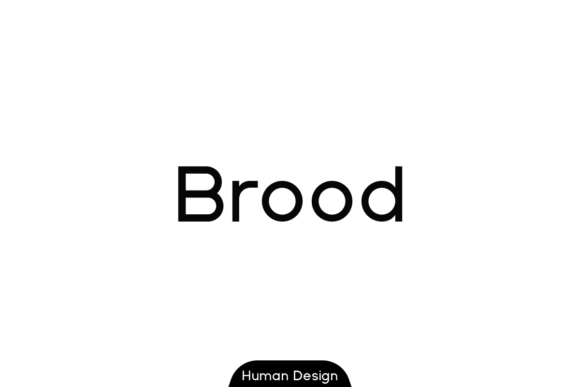
Embark on a typographic odyssey with Brood Font, a minimalist masterpiece crafted by Human Design. A sans serif font of impeccable taste and adaptability, Brood Font effortlessly elevates your designs to new heights of sophistication.
Step into a world of boundless creativity, where Brood Font's clean lines and understated elegance seamlessly complement any project, from sleek logos to captivating headlines. Its versatility knows no bounds, lending itself beautifully to web design, branding, and editorial endeavors.
Unleash your inner artist and let Brood Font serve as your canvas. Its simple, yet striking presence allows your words and ideas to take center stage, ensuring your message shines through with utmost clarity and impact. With Brood Font as your trusted companion, your designs will captivate audiences and leave a lasting impression.
Elevate your digital presence with Brood Font, the perfect choice for modern, minimalist design. Its crisp, legible letterforms guarantee effortless readability across screens, ensuring your website or app delivers an exceptional user experience. Whether crafting captivating headlines or crafting informative paragraphs, Brood Font ensures your content is presented with the utmost clarity and sophistication.
Experience the transformational power of Brood Font today and witness how a single font can elevate your creative endeavors to new heights. Let Brood Font be your guiding light on the path to typographic excellence.